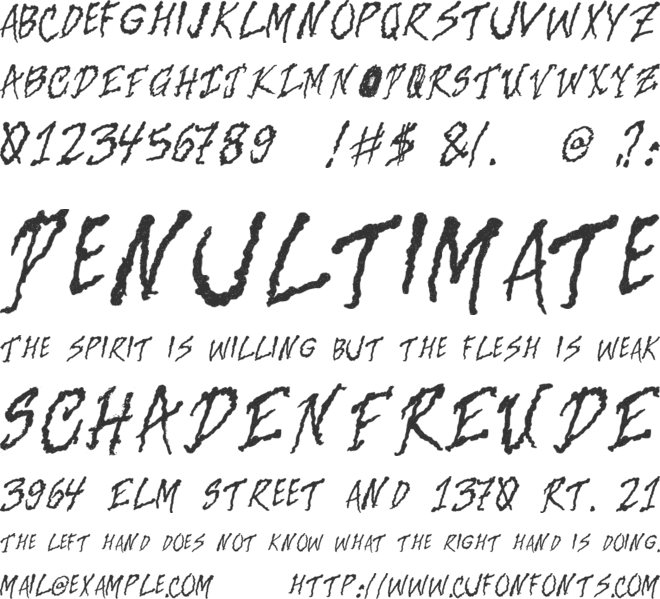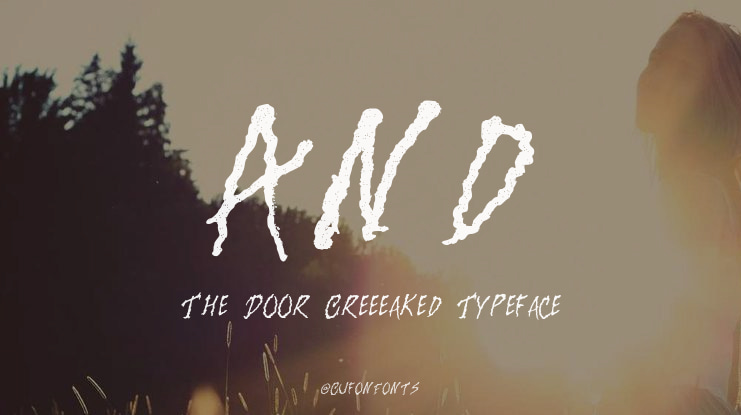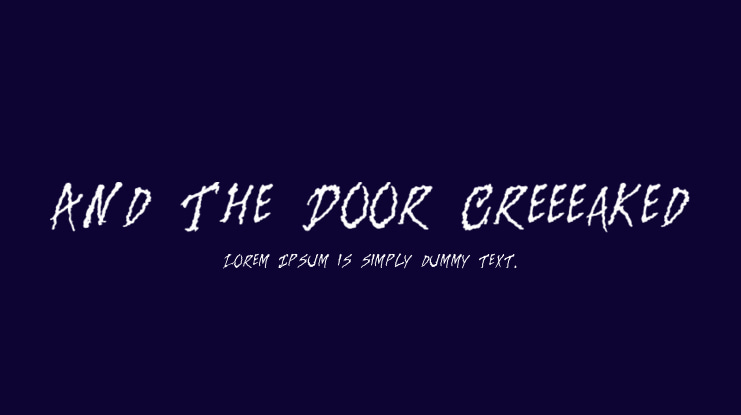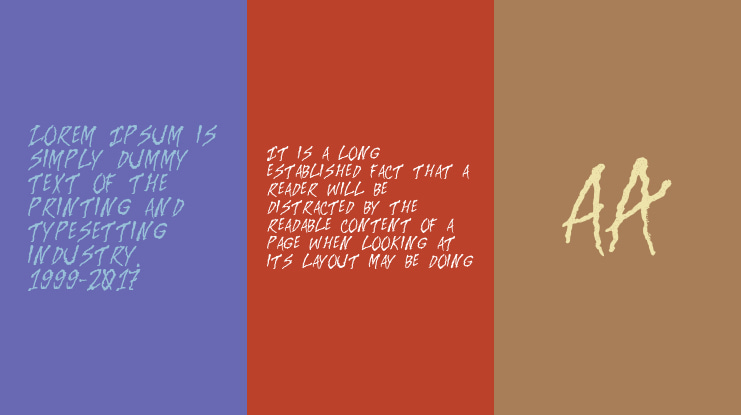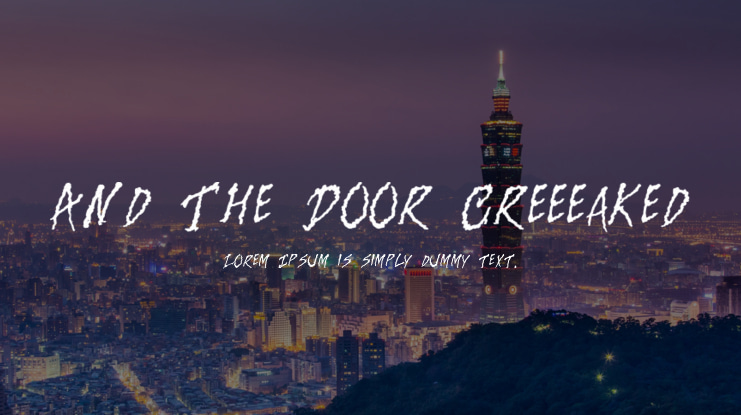
And The Door Creeeaked Font
Blood began to flow, initially with hesitation, as if ashamed of its presence. A few delicate red lines traced a path along the gravitational pull of their new surroundings. ― R.D. Ronald, The Zombie Room
This font is perfect for horror-themed content with its ugly, gruesome, and grotesque design. Please note that it comes with no kerning by default. It is recommended to set the kerning to about -7 points for better readability. Additionally, the font features automatic alternates to create an organic appearance.